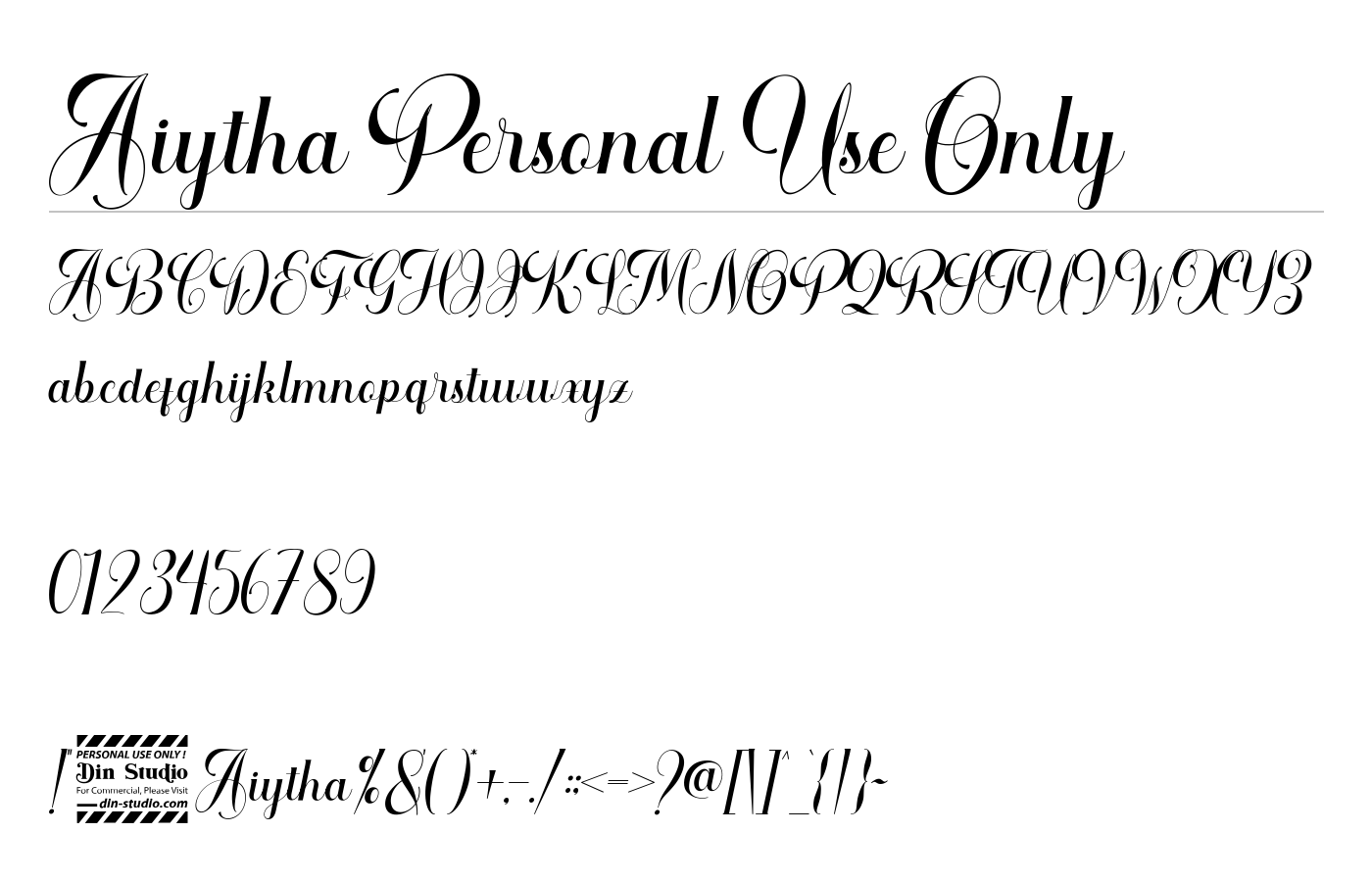
Aiytha Personal Use Only is an elegant script font with a delicate, high-contrast stroke that combines flowing, calligraphic curves with refined, slender letterforms. Its graceful uppercase characters and stylish lowercase letters evoke a sense of sophistication, making it ideal for invitations, luxury branding, and feminine designs where a touch of classic beauty is desired. This font shines in decorative uses such as logos and headers, adding a refined, artistic flair to any project.
Aiytha Personal Use Only Font
About Aiytha Personal Use Only Font
| Font family | Aiytha Personal Use Only Font |